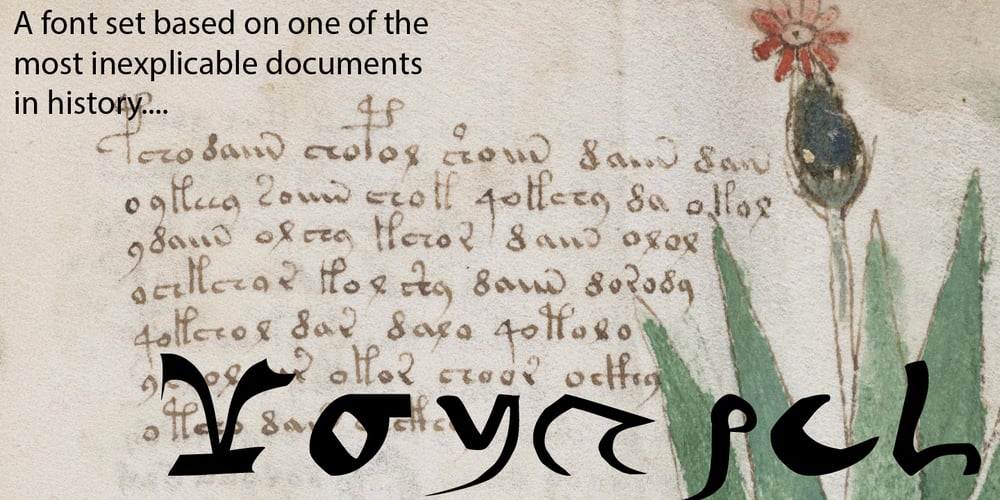
Voynich Font Family was designed by Rob Barba and published by Megami Studios. Voynich contains 3 styles and family package options. Voynich is an eerie, alien font based on the mysterious tome known as the Voynich manuscript. For more information on the manuscript, please see the Wikipedia article at http://en.wikipedia.org/wiki/Voynich_manuscript